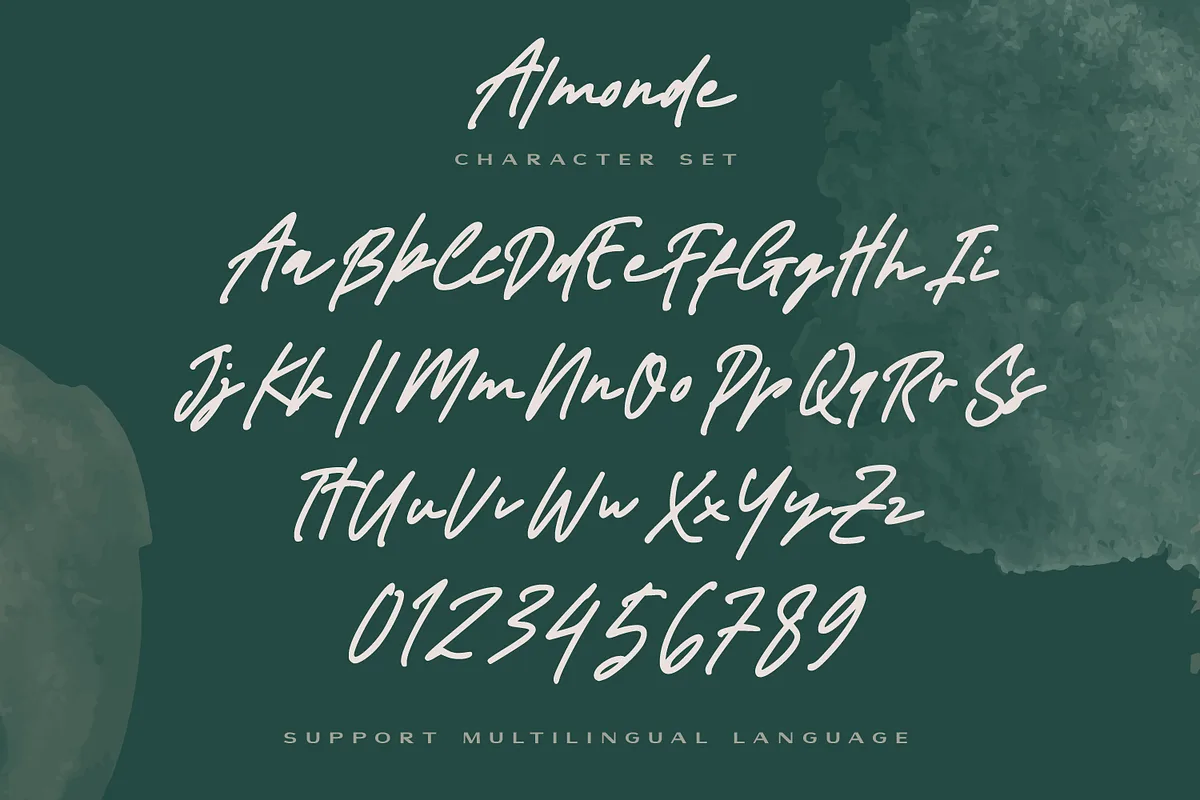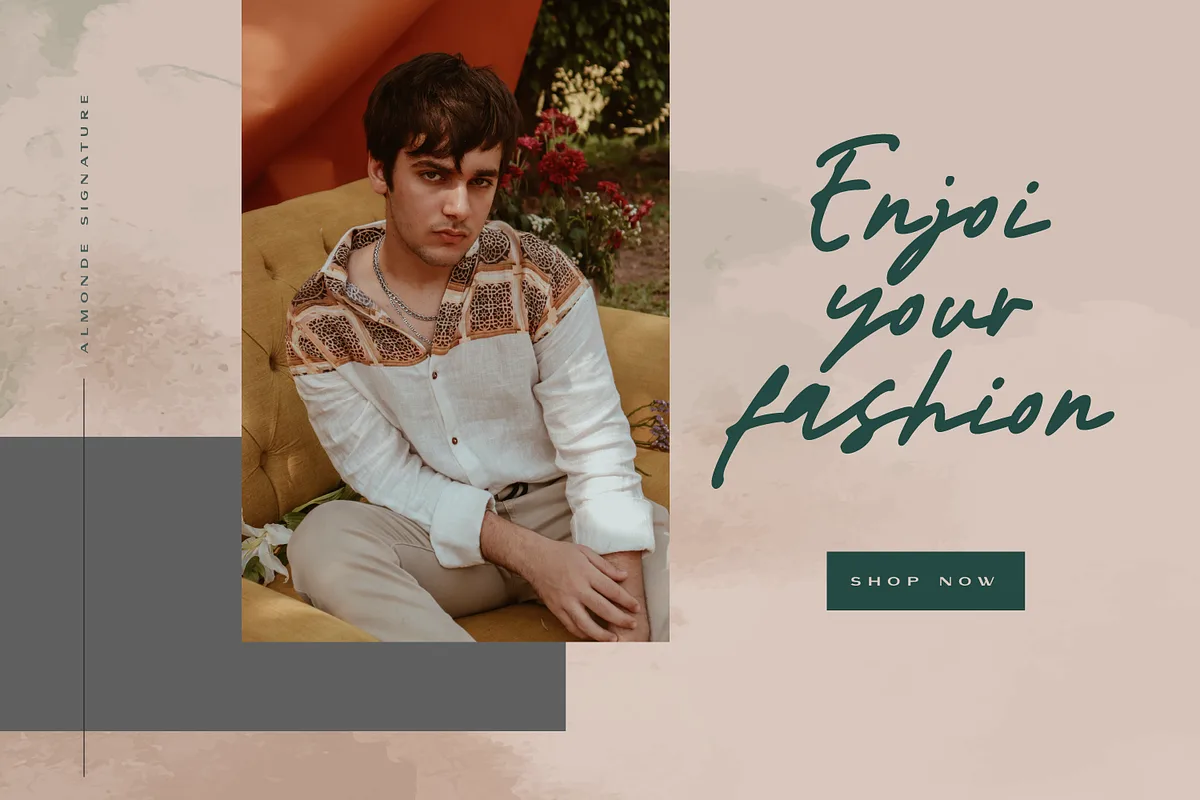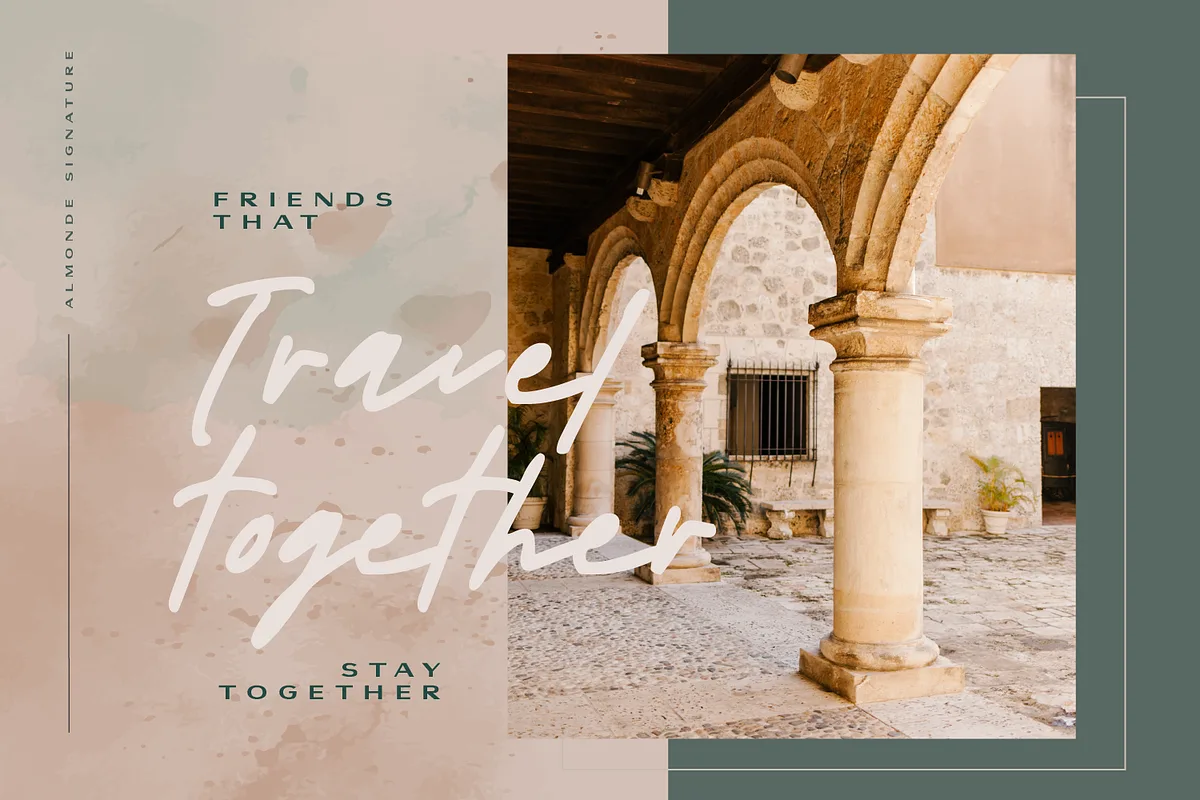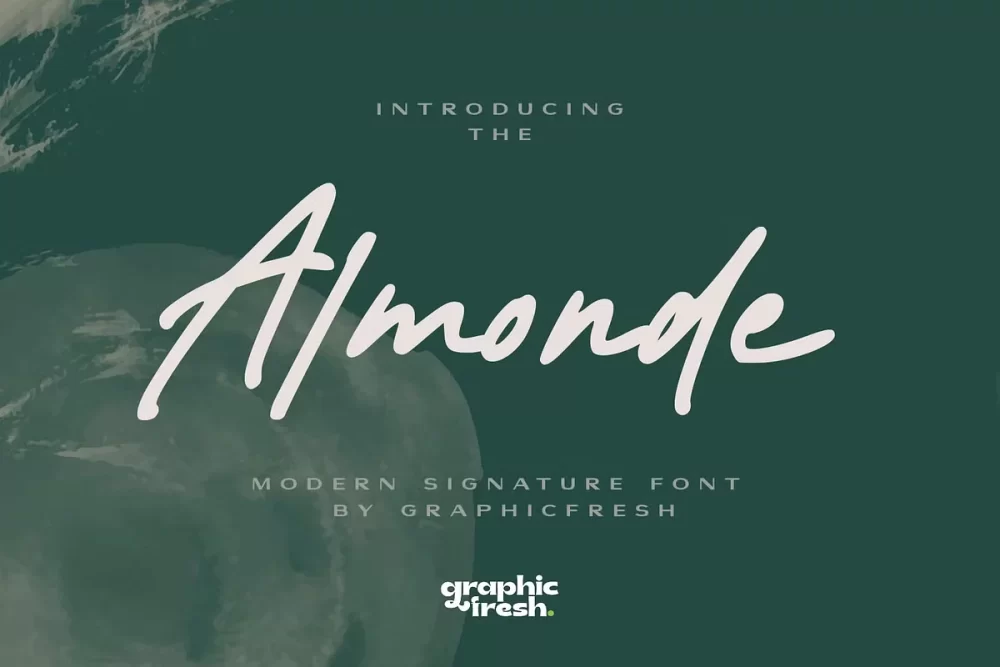
Almonde is a modern signature font. It comes with an elegant and modern style which is perfect to make any design stand out! This font is perfect for branding, wedding invites, magazines, mugs, business cards, quotes, posters, and more.
- Uppercase & Lowercase
- Numerals & Punctuations
- Support International Language